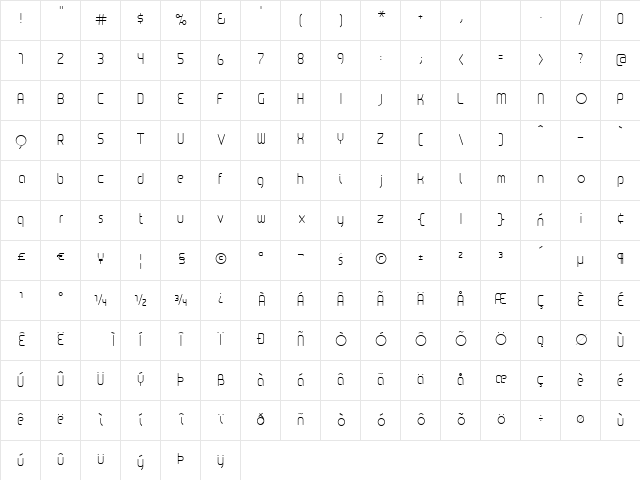
KazooThin Regular Font Preview
KazooThin Regular
KazooThin Regular Font Details
Design Context for KazooThin Typeface
KazooThin offers clean, dependable letterforms without strong stylistic allegiance, making it a practical choice for designers who need flexibility. The delicate stroke weight brings airiness and refinement to layouts.